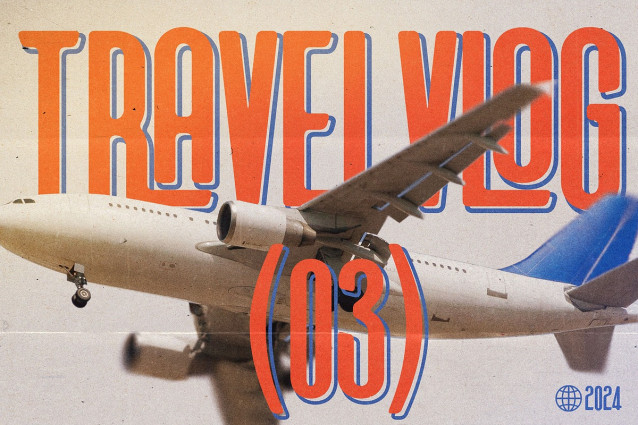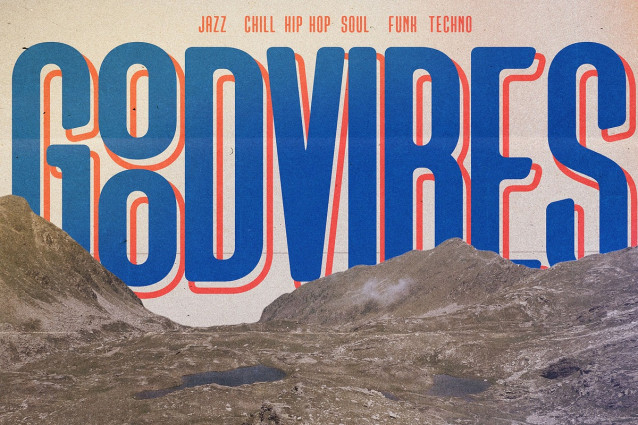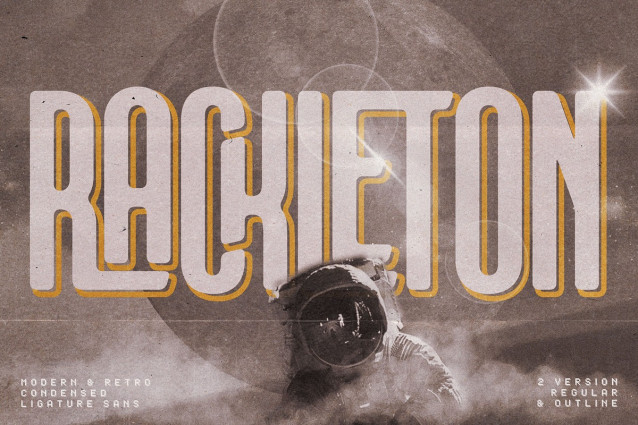
Rackleton Font
Rackleton Font is a modern and retro Condensed Ligature Sans, best used as a display for headings, logos, branding, magazines, product packaging and invitations. Rackleton come with 2 versions, regular and outline.